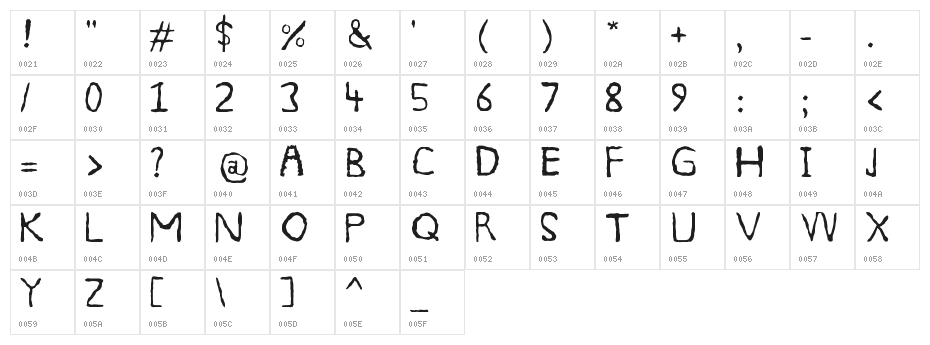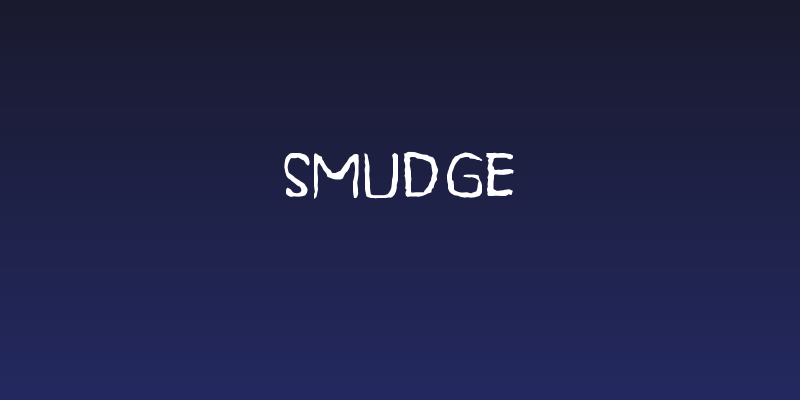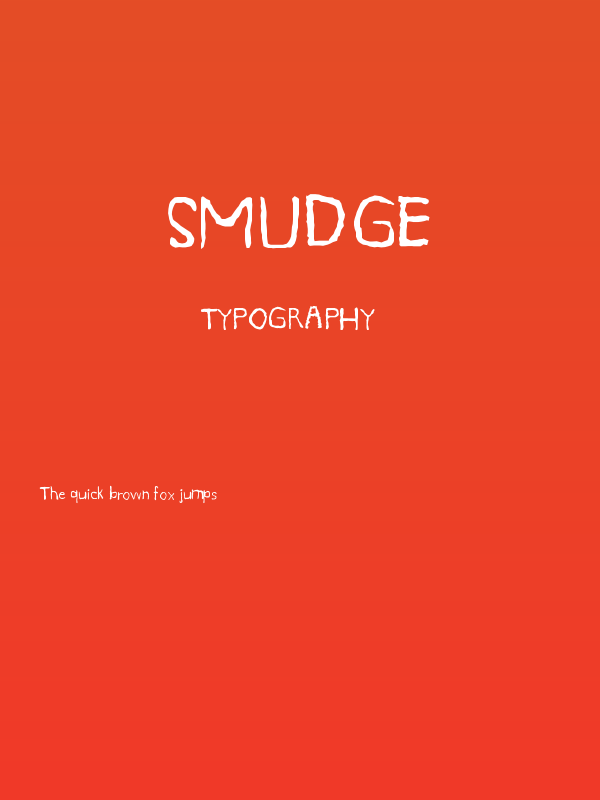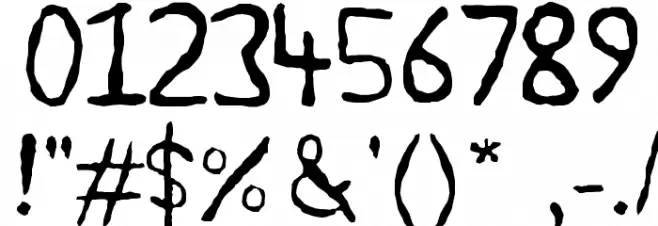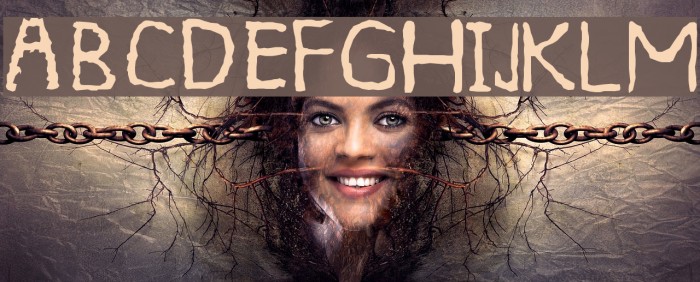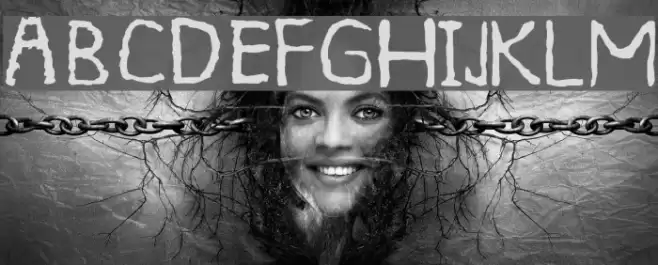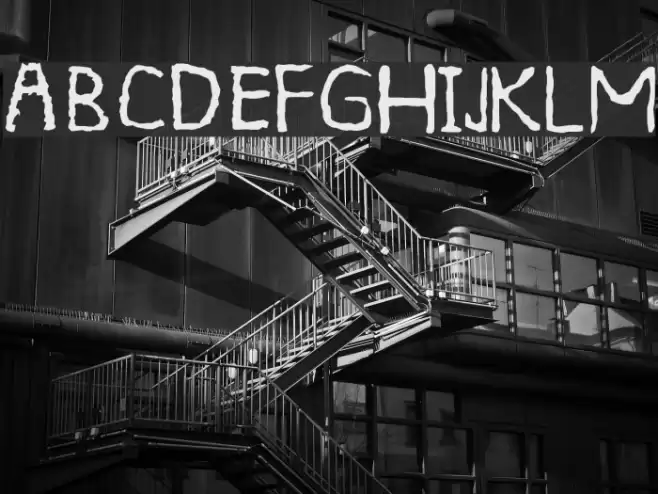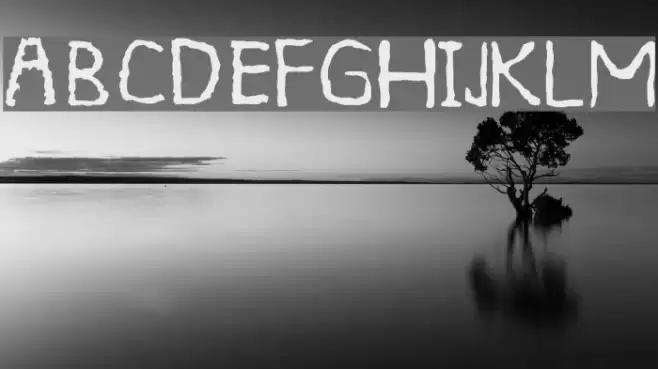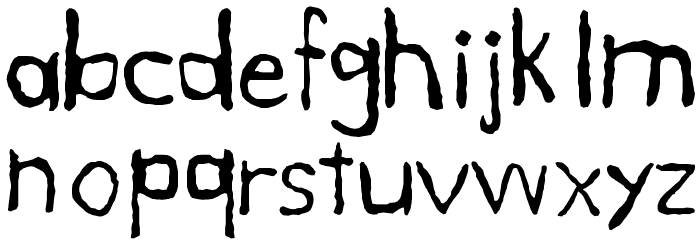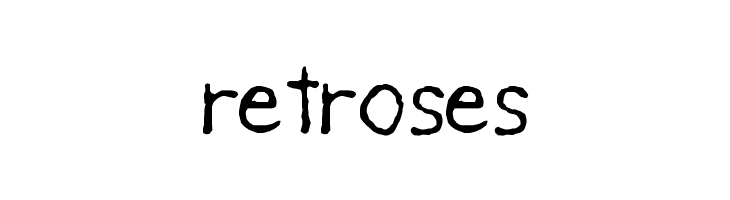
Smudge Font
Smudge Description
This font features a playful, hand-drawn style with irregular, wavy lines that give it a casual and artistic appearance. The characters are bold and slightly uneven, reminiscent of brush strokes or ink smudges, which adds to its organic and spontaneous feel. The uppercase and lowercase letters maintain a consistent style, while the numerals and special characters follow the same whimsical design. This font is ideal for projects that require a personal touch or an informal, creative vibe.
| Use Case | Headlines, Logos, Creative projects |
| Proposed Projects | Ideal for greeting cards, children's books, creative posters, and artistic branding. |